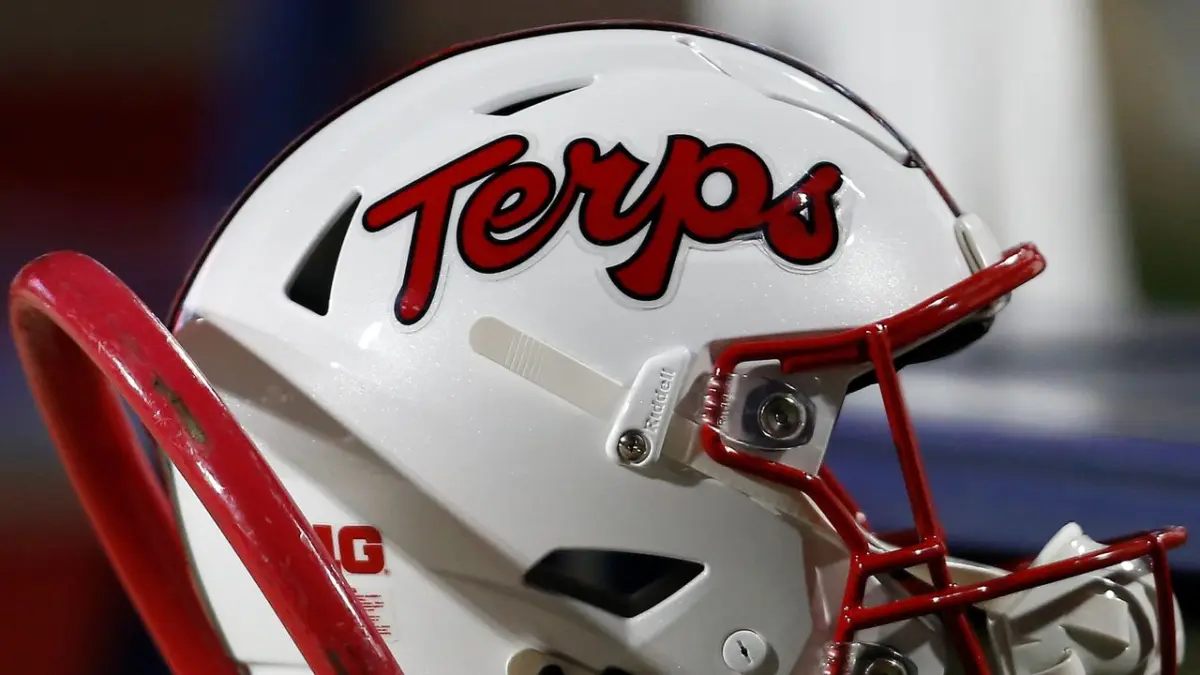
Main Facts: The Battle for "Terps"
In the fiercely competitive arenas of brand identity and intellectual property law, few assets are as fiercely guarded as heritage branding. The University of Maryland (UMD) has found itself locked in a high-stakes design and trademark dispute with a cannabis industry startup over an allegedly derivative logo. At the center of the controversy is the iconic "Terps"—short for terrapins—wordmark, a cornerstone of collegiate athletics merchandise, student culture, and institutional heritage for decades.
The adversary in question is Terps USA, a cannabis and terpene-focused brand founded by Ken Fry. While the two entities operate in vastly different commercial spheres—higher education versus the rapidly expanding legal cannabis market—their visual identities share striking resemblances. Both brands utilize a bold, red, script-style typography featuring distinct flourishes on the terminal letterforms, particularly the lowercase "r" and "s."
For the University of Maryland, protecting the "Terps" mark is an existential defense of brand equity. For Terps USA, holding onto the moniker is a matter of business survival. As legal letters fly and design tweaks are implemented, this clash has evolved into a fascinating case study on the limits of trademark protection, the linguistic evolution of industry-specific shorthand, and the unique challenges universities face when their heritage terms are co-opted by emerging commercial markets.
Chronology: How the Trademark Standoff Unfolded
The Collegiate Tradition
For generations, the University of Maryland has cultivated its athletic identity around the "Terps," a colloquialism derived from the diamondback terrapin, the official state reptile of Maryland and the beloved mascot of the university’s sports teams. Over decades, the stylized "Terps" script has appeared on countless football helmets, basketball jerseys, baseball caps, alumni hoodies, and campus memorabilia. UMD has heavily invested in securing trademark protections across multiple classes of goods, cementing the wordmark as a valuable intellectual property asset.
The Rise of Terps USA
As the legal cannabis market experienced a massive boom across the United States, businesses sought names that resonated with consumers familiar with industry nomenclature. In the cannabis sector, "terps" is widely used as shorthand for terpenes—the naturally occurring aromatic compounds found in the cannabis plant that dictate flavor and scent profiles.
Capitalizing on this terminology, Colorado-based entrepreneur Ken Fry established Terps USA. To build brand recognition, the company adopted a visual identity centered around a bold, flowing script font, heavily styled in red, which bore an uncanny resemblance to traditional sports typography—most notably, the collegiate aesthetic long championed by institutions like UMD.
The Cease-and-Desist Escalation
The peaceful coexistence of the two brands came to an abrupt halt when University of Maryland legal representatives took notice of the cannabis company’s branding. UMD officials dispatched a stern email directly to Ken Fry, pulling no punches.
The university’s legal team asserted that Terps USA had deliberately appropriated its intellectual property, writing: "Your company has stolen the name and trademarked image from the University of Maryland." Furthermore, the university warned that a formal cease-and-desist letter was imminent, arguing that the cannabis brand’s commercial association with the term would "materially impair the goodwill embodied in the University’s famous TERPS marks."
The Counter-Move and Logo Redesign
Rather than folding immediately under the immense legal weight of a major research university, Ken Fry pushed back. While acknowledging the university’s concerns regarding visual overlap, Fry instituted modifications to the Terps USA logo.
The updated design swapped the original university-esque red for a cannabis-friendly green color scheme and introduced a sophisticated gold drop-shadow embellishment to help differentiate the script. Despite these aesthetic concessions, Fry stood firm on the core branding element, vowing to defend the company’s right to use the name.
Supporting Data: Understanding the Trademark Landscape
Trademark disputes involving universities and commercial enterprises often hinge on specific legal doctrines, consumer confusion, and the classification of goods and services. To fully grasp the magnitude of the Maryland University vs. Terps USA dispute, it is helpful to examine the mechanics of trademark law in the United States.
1. Trademark Classes and Commercial Divergence
Under the United States Patent and Trademark Office (USPTO) guidelines, trademarks are categorized into distinct classes based on the nature of the goods or services provided:
Class 25 & Class 41 (University of Maryland): Encompasses apparel, hats, collegiate merchandise, educational services, and athletic entertainment.
One thing is certain: in the high-stakes world of typography and trademark law, the script font has become the ultimate battleground. As brands continue to fight tooth and nail for consumer attention and cultural ownership of words, designers must navigate an increasingly minefield-laden landscape where inspiration, coincidence, and infringement lie dangerously close together.